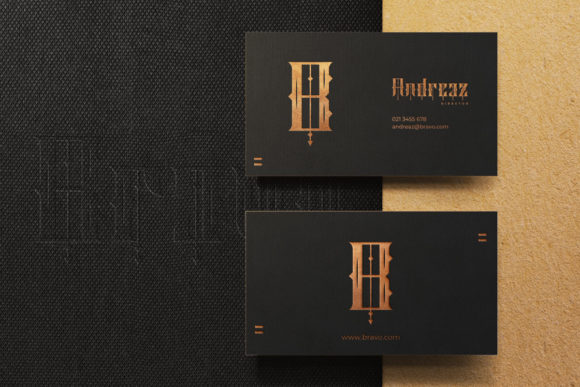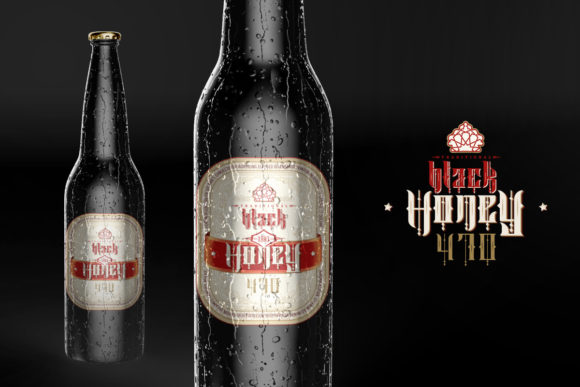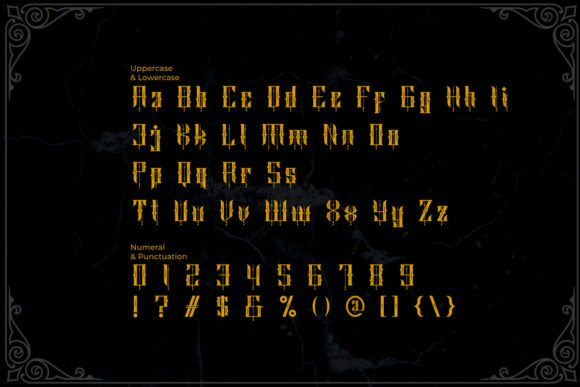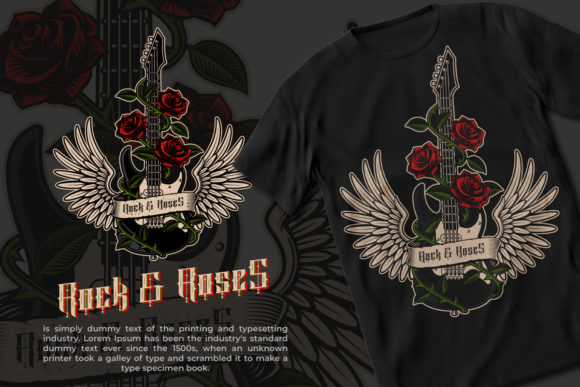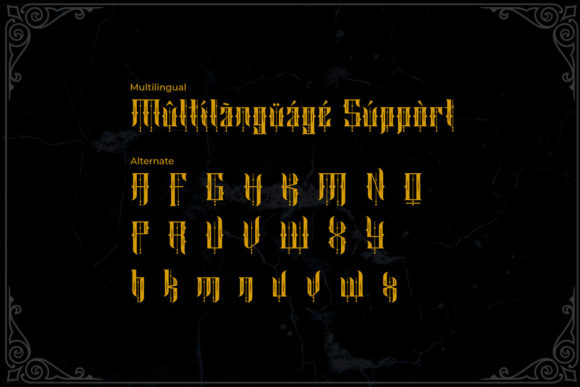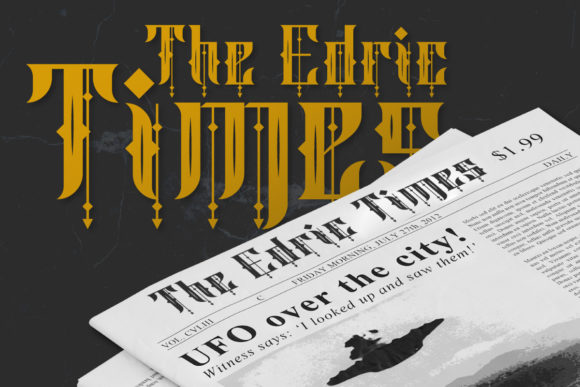
Unleash the Dark Elegance: Exploring the Black Sting Font
In the realm of typography, few fonts evoke the sense of mystery, horror, and classic elegance as effectively as the Black Sting font. Inspired by the Gothic style, this blackletter font has become a go-to choice for designers and crafters looking to add a touch of the extraordinary to their projects. In this article, we’ll delve into the characteristics, benefits, and uses of the Black Sting font, and explore why it has become a favorite among creatives.
The Gothic Inspiration
The Black Sting font draws its inspiration from the Gothic style, a typographic tradition that dates back to the Middle Ages. Characterized by its dramatic, ornate, and intricate letterforms, Gothic typography exudes a sense of grandeur and mystery. The Black Sting font takes these classic elements and updates them with a modern twist, resulting in a unique and captivating visual identity.
Key Features of Black Sting Font
- Stunning, Mysterious, Horror, Classic, and Vintage Styles: The Black Sting font boasts a range of styles that can be applied to various design projects, from eerie Halloween-themed designs to elegant wedding invitations.
- Blackletter Inspiration: The Black Sting font’s blackletter roots give it a distinctive, bold appearance that adds a touch of drama to any design.
Using Black Sting Font in Design Projects
The versatility of the Black Sting font makes it suitable for a wide range of design applications. Here are a few ideas to get you started:
- Halloween and Horror-themed Designs: The Black Sting font is perfect for creating spooky posters, invitations, and social media graphics that will leave a lasting impression.
- Wedding and Event Invitations: Add a touch of elegance and sophistication to your wedding or event invitations with the Black Sting font’s classic and vintage styles.
- Branding and Packaging: Use the Black Sting font to create a unique and memorable brand identity that stands out from the competition.
- Stationery and Paper Crafts: The Black Sting font is ideal for adding a touch of personality to stationery, journals, and other paper crafts.
Tips for Working with Black Sting Font
To get the most out of the Black Sting font, follow these tips:
- Experiment with Different Styles: Don’t be afraid to try out different styles and combinations to find the one that works best for your project.
- Pay Attention to Legibility: While the Black Sting font is bold and dramatic, make sure it’s still legible, especially when used in smaller sizes.
- Mix and Match with Other Fonts: Combine the Black Sting font with other fonts to create a unique and visually appealing typographic hierarchy.
The Black Sting font is a powerful tool for designers and crafters looking to add a touch of mystery, elegance, and horror to their projects. With its stunning, mysterious, horror, classic, and vintage styles, PUA encoding, and blackletter inspiration, this font is sure to become a favorite among creatives. Whether you’re working on a Halloween-themed design, wedding invitation, or branding project, the Black Sting font is the perfect choice for adding a special touch.